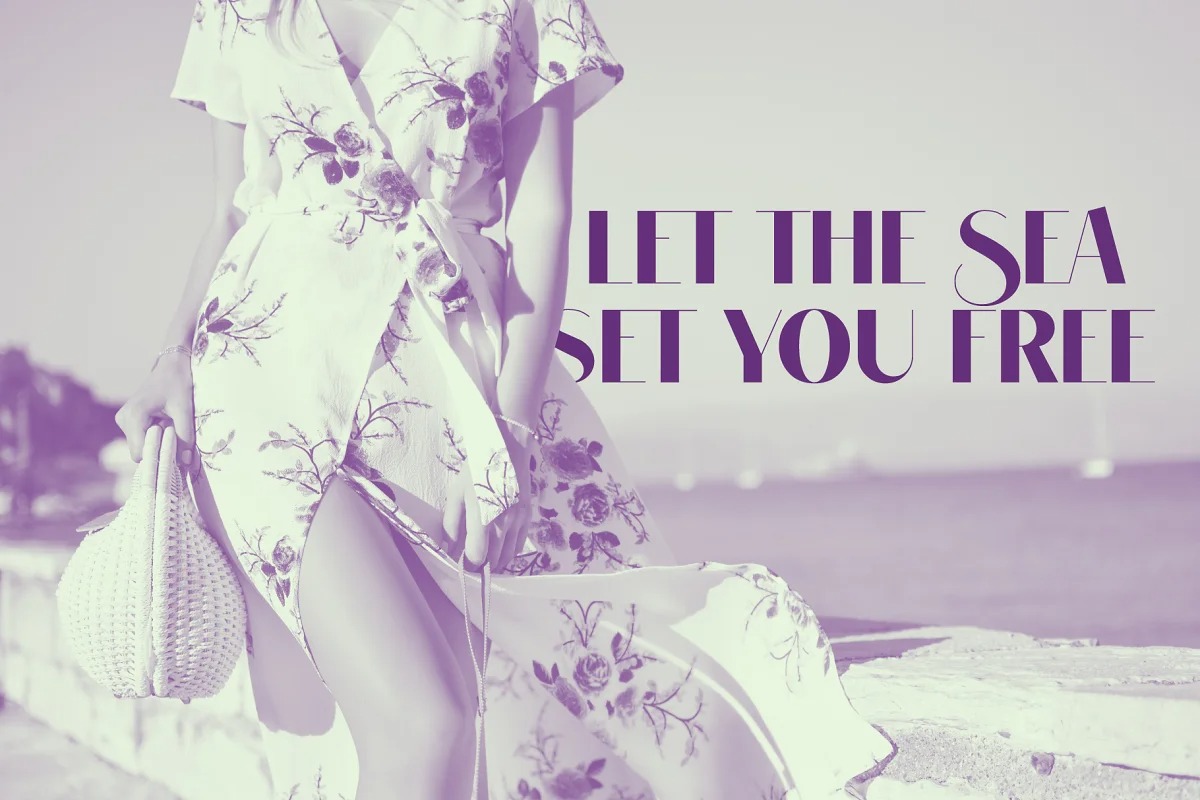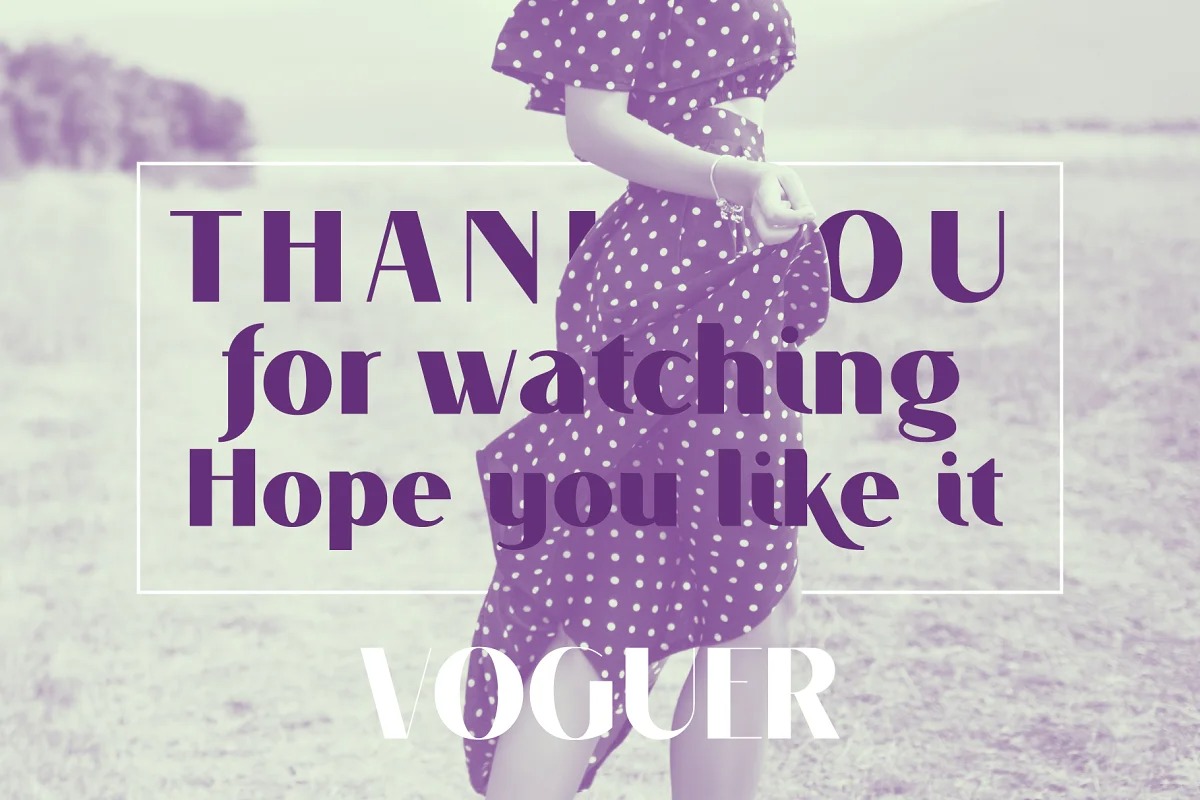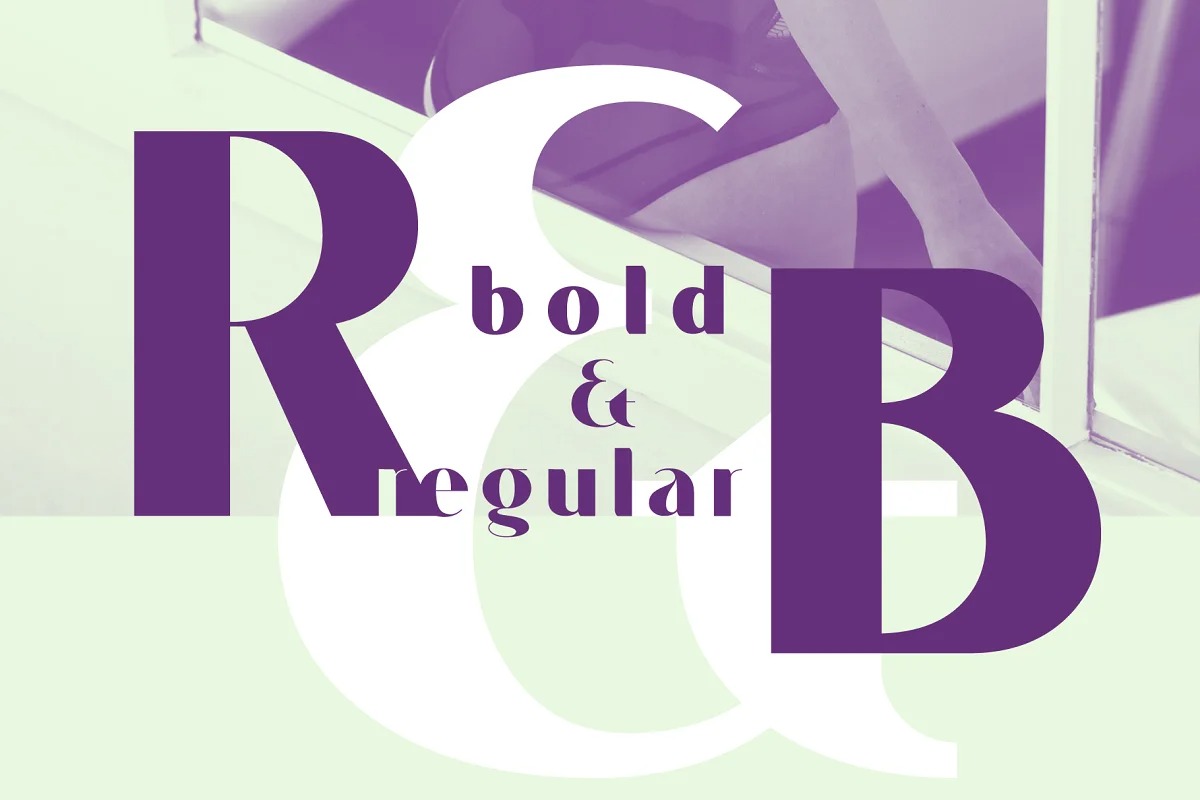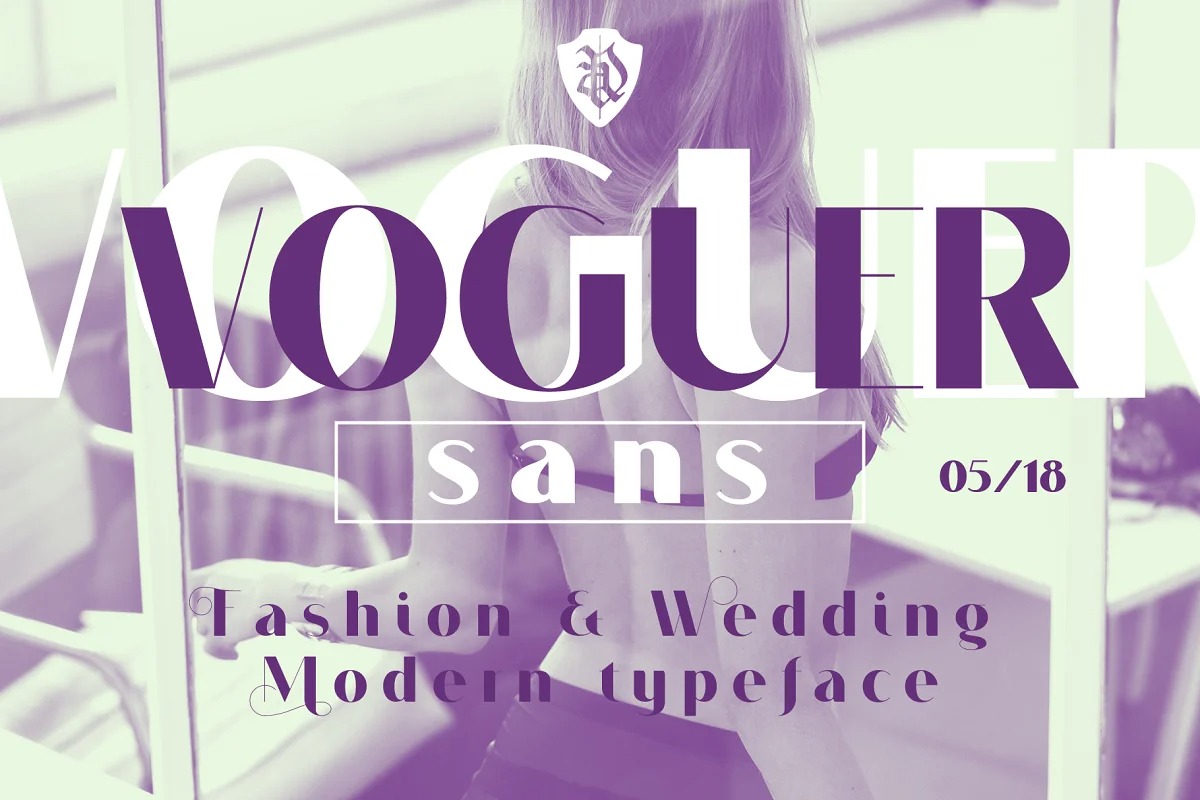
Voguer Sans Font
This is a stylish sans serif font family inspired by the fashion glossy magazines typography. The mix of modern and vintage elements results in an elegant design. The font have 2 weights: regular and bold and includes uppercase and smallcase letters, alternate characters and multilingual support. The font is perfect for wedding elegant invitation cards, beauty and fashion package design, glossy posters. It have supporting for many european languages and perfect cyrillic!